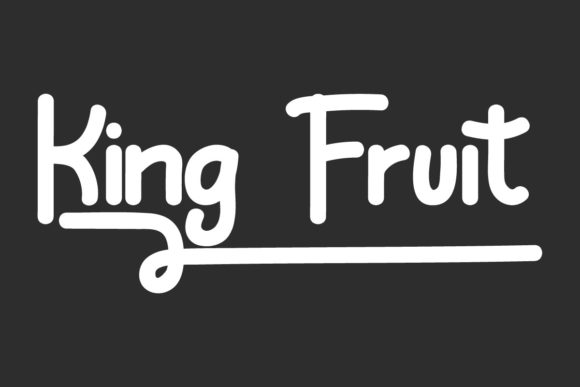
Indulge in the realm of typography with King Fruit, a captivating display font that will awaken your designs and ignite your creativity. Immerse yourself in its playful and exuberant character, crafted with meticulous attention to detail, ensuring every letter dances off the page with charm and individuality.
As the undisputed Best Font For Book Cover Title, King Fruit beckons you to embark on enchanting literary adventures. Its whimsical essence effortlessly elevates your creations, transforming ordinary titles into captivating masterpieces that demand attention. Let your words dance across the page, imbued with a touch of whimsy and a hint of mischief.
But the versatility of King Fruit extends far beyond the confines of book covers. Its playful nature lends itself to a myriad of projects, from eye-catching flyers to stylish logos, each infused with a unique touch of fun and flair. Unleash your imagination and explore the boundless possibilities that await.
Designers, rejoice! King Fruit is your secret weapon for creating unforgettable branding designs that leave a lasting impression. Its bold and playful presence will make your products and invitations stand out from the crowd, capturing hearts and minds with its irresistible charm.
Step into a world where fonts ignite emotions and inspire masterpieces. With King Fruit, your words take flight, adorned with a captivating aura that captivates and enchants. Embrace the playful spirit and let your creativity soar to new heights.
Join the league of exceptional designers who have discovered the transformative power of King Fruit. Its playful spirit and versatility will empower you to craft designs that resonate with your audience, leaving an indelible mark on their minds. Immerse yourself in the joy of creation and let King Fruit be your guide.